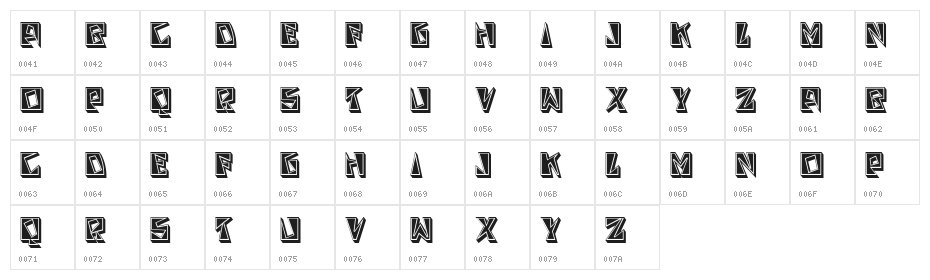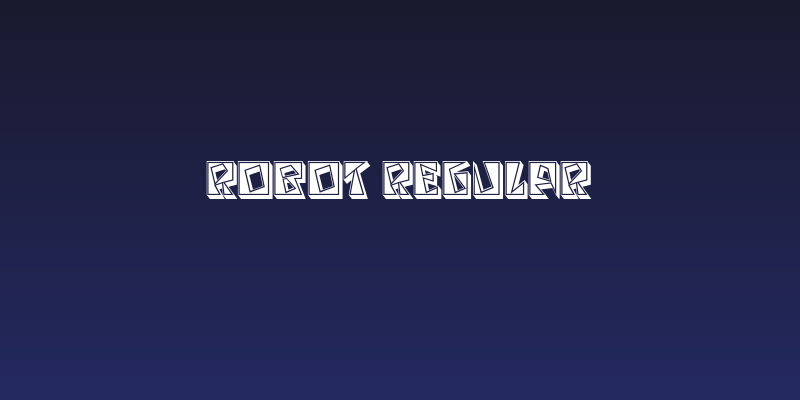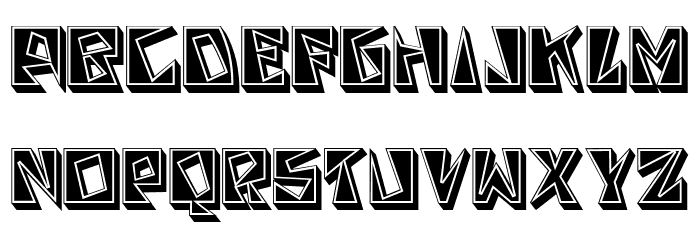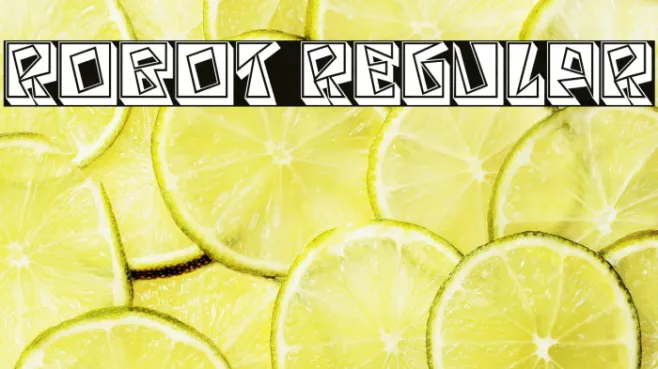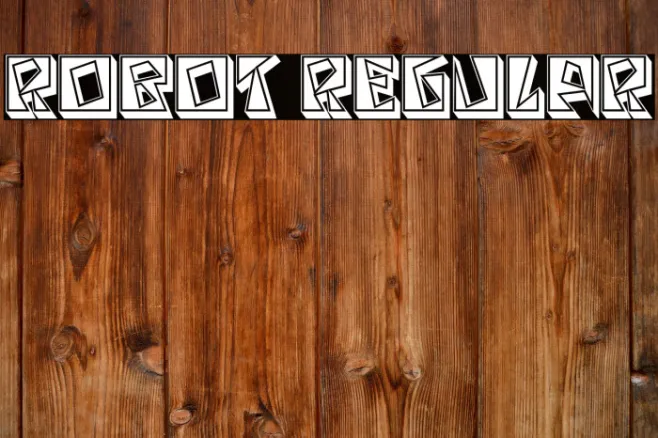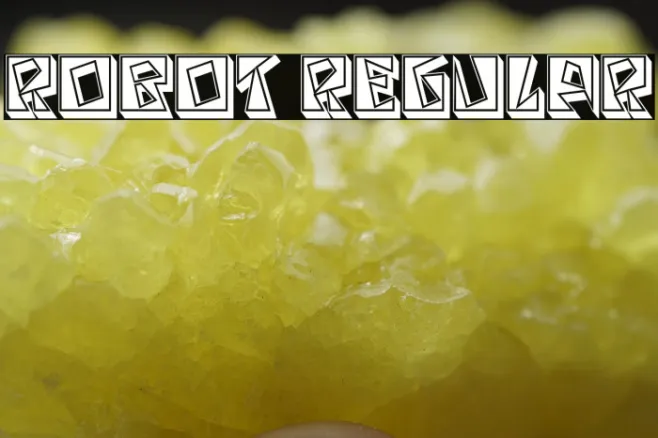
Robot Regular Font
Robot Regular Description
This font features a bold, geometric design with a futuristic aesthetic. The characters are constructed with sharp angles and a three-dimensional effect, giving them a dynamic and striking appearance. The use of thick lines and contrasting shadows enhances the boldness and makes each letter stand out distinctly. The style is reminiscent of digital or robotic themes, suitable for projects that require a modern and edgy look. The uppercase letters are uniform in height, maintaining a consistent visual flow across the text. The font's unique structure makes it ideal for attention-grabbing headlines or logos.
| Proposed Projects | Ideal for sci-fi themed posters, tech company logos, video game titles, and futuristic branding. |